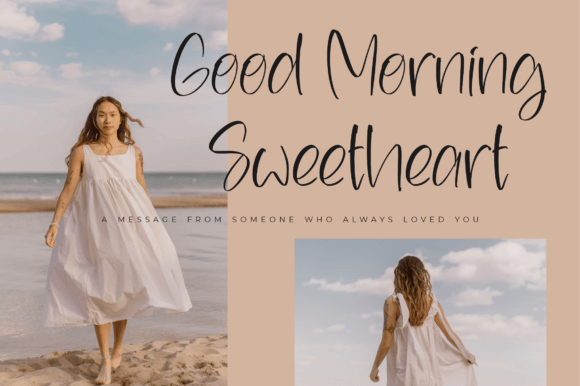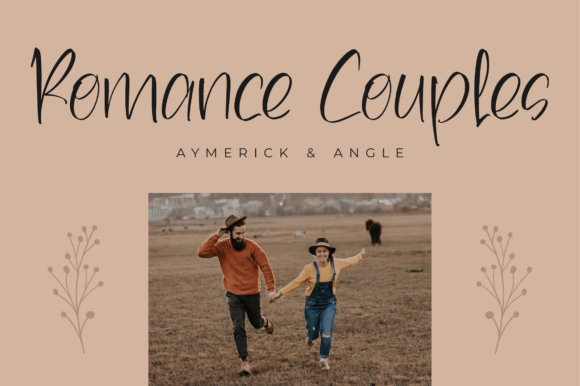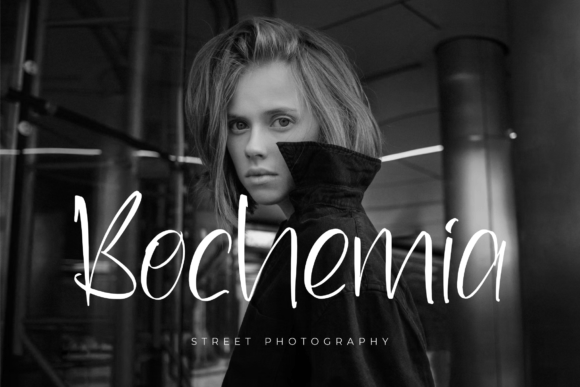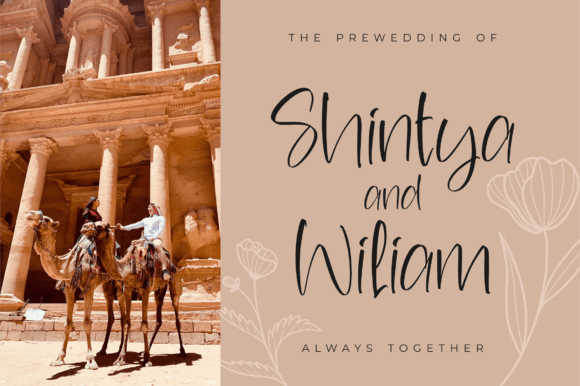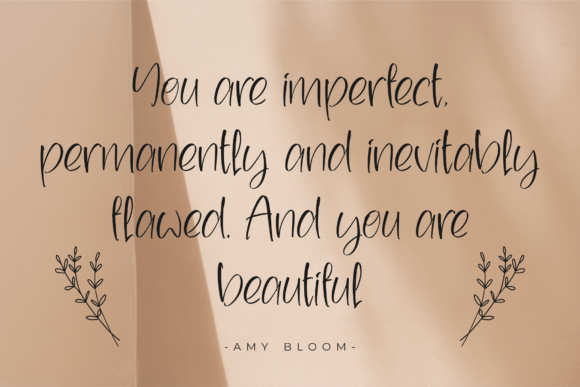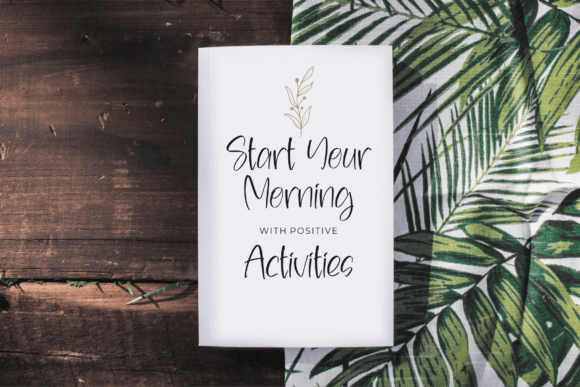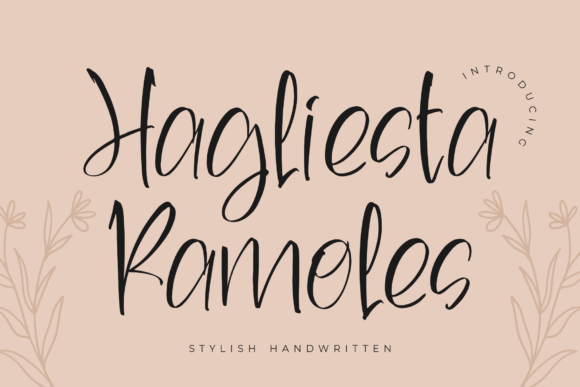
Hagliesta Ramoles Font: Elevate Your Designs with Stylish Handwritten Elegance
Are you a designer or crafter looking for a unique and stylish handwritten font to elevate your projects? Look no further than Hagliesta Ramoles, a beautiful script font from Letterfabric Studio. This versatile font is perfect for a wide range of applications, from logos and branding projects to homeware designs, product packaging, and more.
What is Hagliesta Ramoles Font?
Hagliesta Ramoles is a stylish handwritten font that exudes elegance and sophistication. With its flowing script and delicate lines, this font is sure to add a touch of class to any project. Whether you’re working on a logo, invitation card, or product packaging, Hagliesta Ramoles is the perfect choice for designers and crafters who want to create something truly special.
Key Features of Hagliesta Ramoles Font
- Stylish Handwritten Design: Hagliesta Ramoles features a beautiful, handwritten design that’s perfect for creating elegant and sophisticated projects.
- Versatile: This font is suitable for a wide range of applications, including logos, branding projects, homeware designs, product packaging, and more.
- High-Quality: This font is of high quality, ensuring that your projects look professional and polished.
Hagliesta Ramoles is a versatile font that’s perfect for a wide range of projects, including:
- Logos and Branding Projects: Create a lasting impression with a stylish logo that showcases your brand’s personality.
- Homeware Designs: Add a touch of elegance to your homeware designs, from kitchen utensils to decorative items.
- Product Packaging: Make your product stand out with beautiful packaging that features the Hagliesta Ramoles font.
- Mugs and Quotes: Create inspiring mugs and quotes that feature this stylish font.
- Posters and Shopping Bags: Use Hagliesta Ramoles to create eye-catching posters and shopping bags that grab attention.
- T-Shirts and Book Covers: Add a touch of style to your t-shirts and book covers with this beautiful font.
- Name Cards and Invitation Cards: Create elegant name cards and invitation cards that feature the Hagliesta Ramoles font.
- Greeting Cards and Labels: Use this font to create beautiful greeting cards and labels that add a personal touch.
- Photography and Watermark: Add a touch of elegance to your photography with a watermark that features the Hagliesta Ramoles font.
- Special Events: Use this font to create beautiful designs for special events, such as weddings, birthdays, and anniversaries.
Why Choose Hagliesta Ramoles Font?
There are many reasons why you should choose Hagliesta Ramoles font for your next project. Here are just a few:
- Unique and Stylish: This font is truly unique and stylish, making it perfect for designers and crafters who want to create something special.
- Elegant and Sophisticated: Hagliesta Ramoles exudes elegance and sophistication, making it perfect for projects that require a touch of class.
- Versatile: This font is suitable for a wide range of applications, making it a great addition to any designer’s toolkit.
- High-Quality: Hagliesta Ramoles is of high quality, ensuring that your projects look professional and polished.
In conclusion, Hagliesta Ramoles font is a beautiful and stylish handwritten font that’s perfect for designers and crafters who want to create something truly special. With its elegant and sophisticated design, this font is suitable for a wide range of applications, from logos and branding projects to homeware designs and product packaging. So why wait? Download Hagliesta Ramoles font today and elevate your designs to the next level!